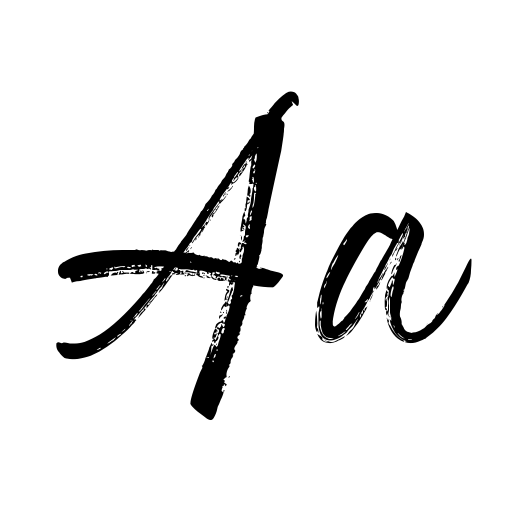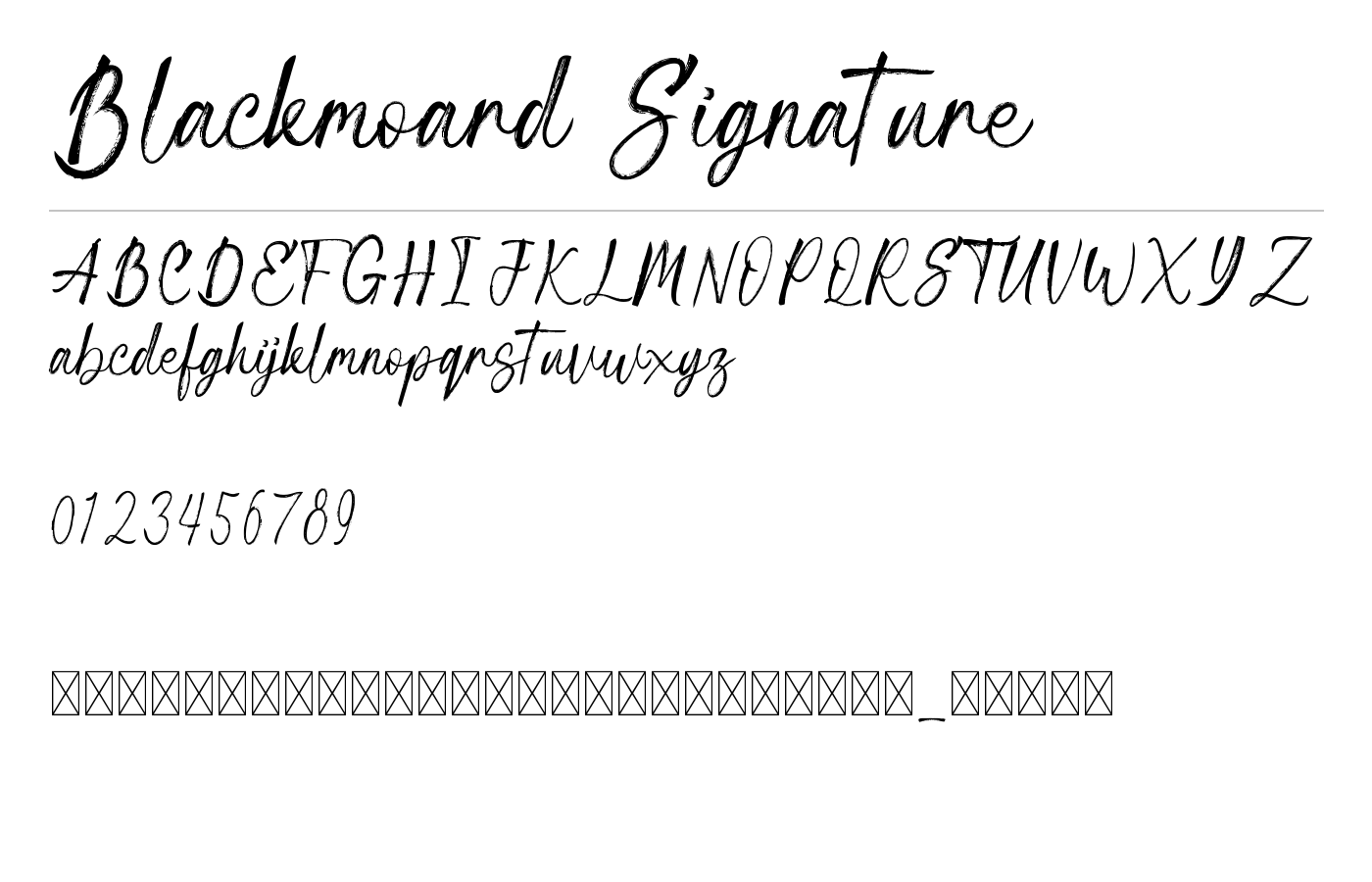
Blackmoard Signature is a stylish script font that mimics elegant, hand-drawn handwriting with a natural and flowing feel. Its slender, slightly textured strokes and casual yet refined letterforms make it ideal for branding, invitations, and creative projects that seek a personal, sophisticated touch. This font works wonderfully for logos, fashion, and editorial use where a modern yet approachable signature style is desired.
Blackmoard Signature Font
About Blackmoard Signature Font
| Font family | Blackmoard Signature Font |
| Designer | Bayu Wibisono |
| Trademark | Muwatta Studio |